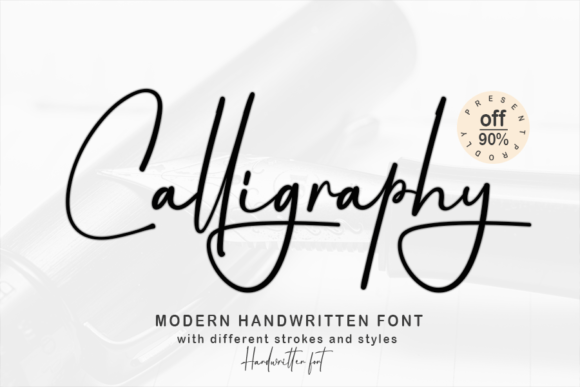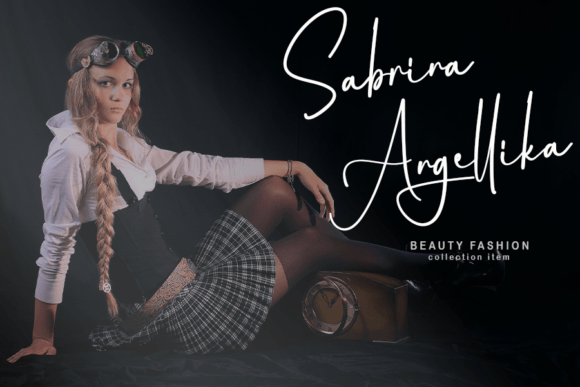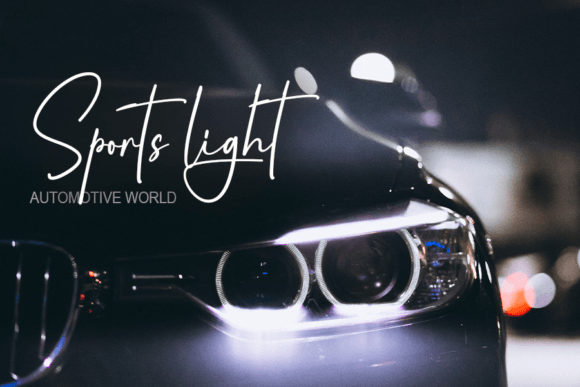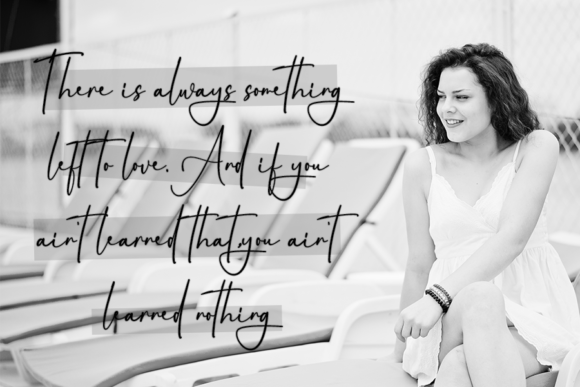
Calligraphy Font
Calligraphy is a stylish and elegant signature script font. It is perfect for product packaging, branding project, magazines, social media, weddings, or just used to express words above the background.